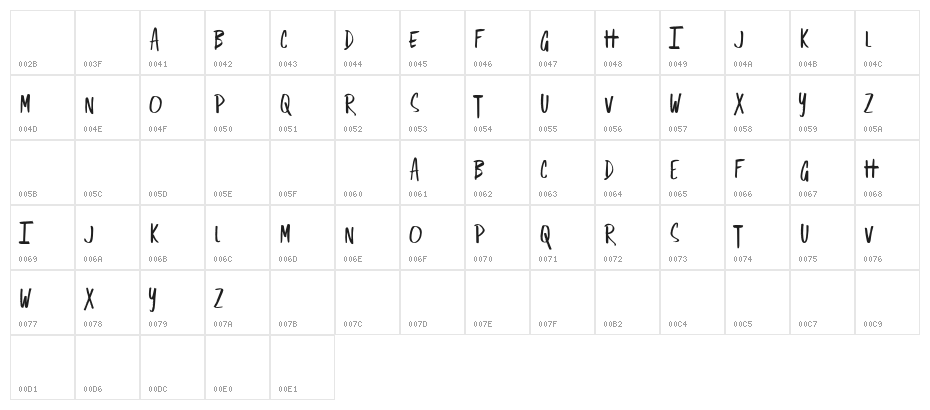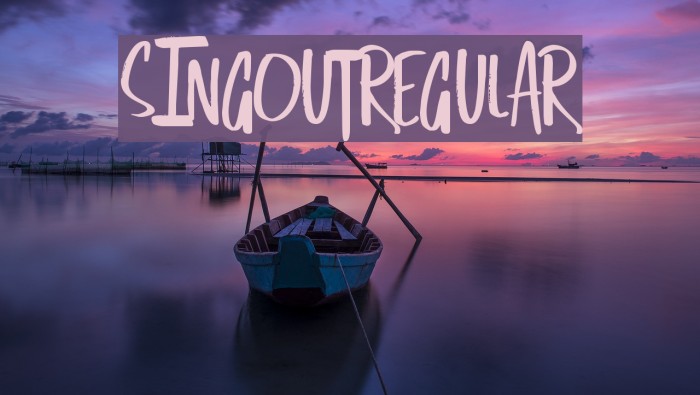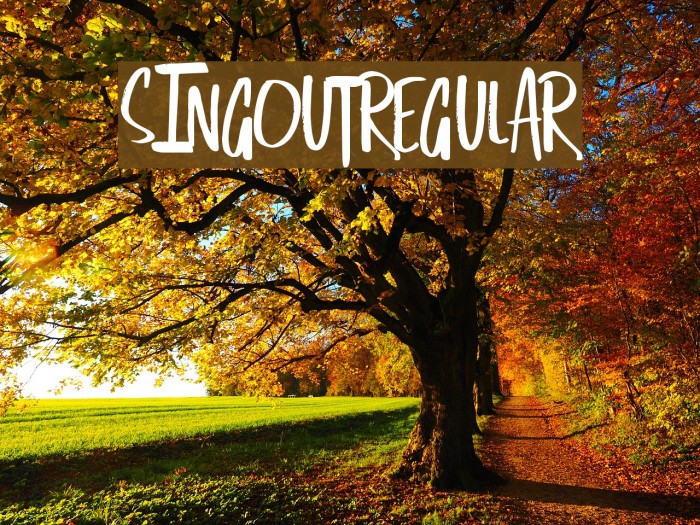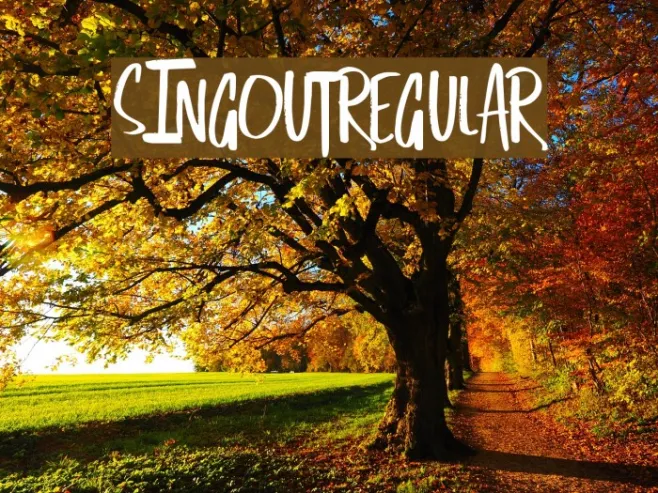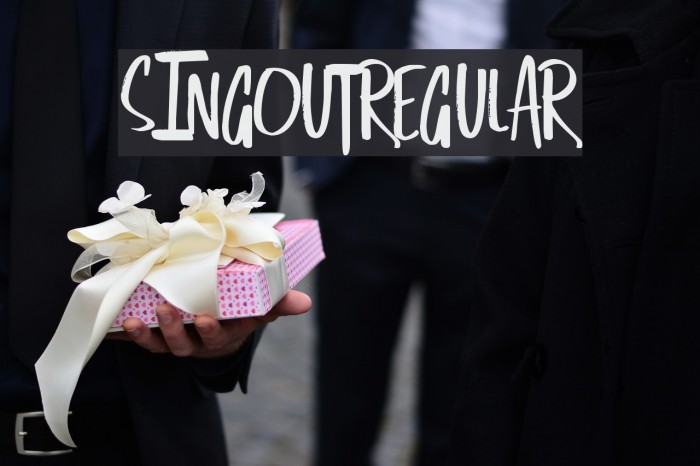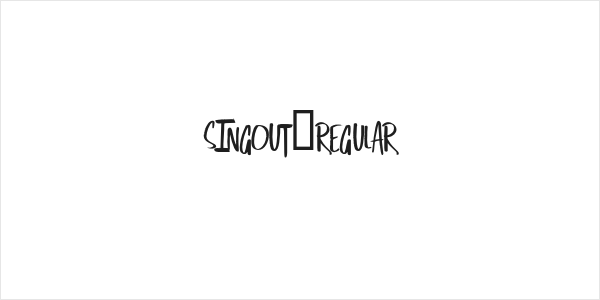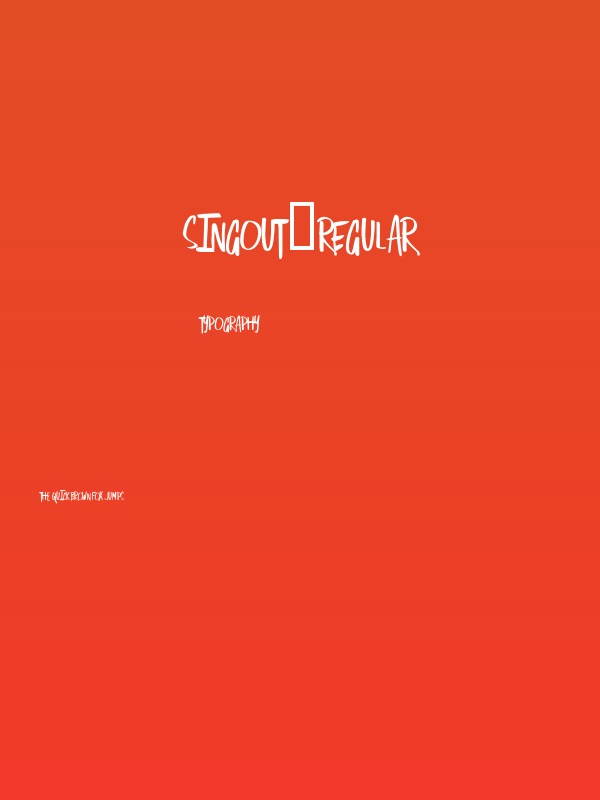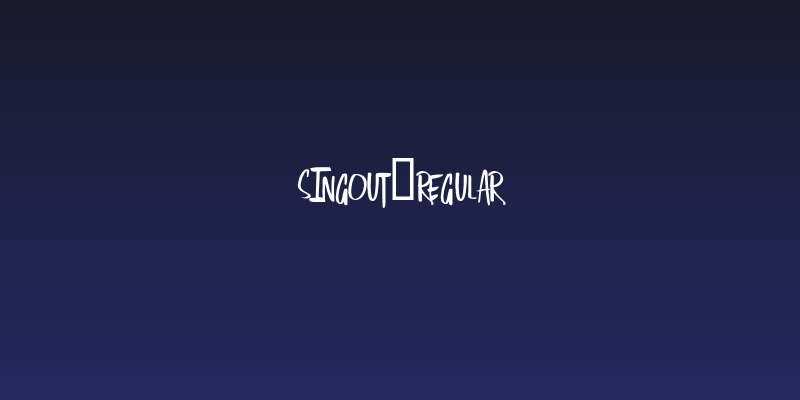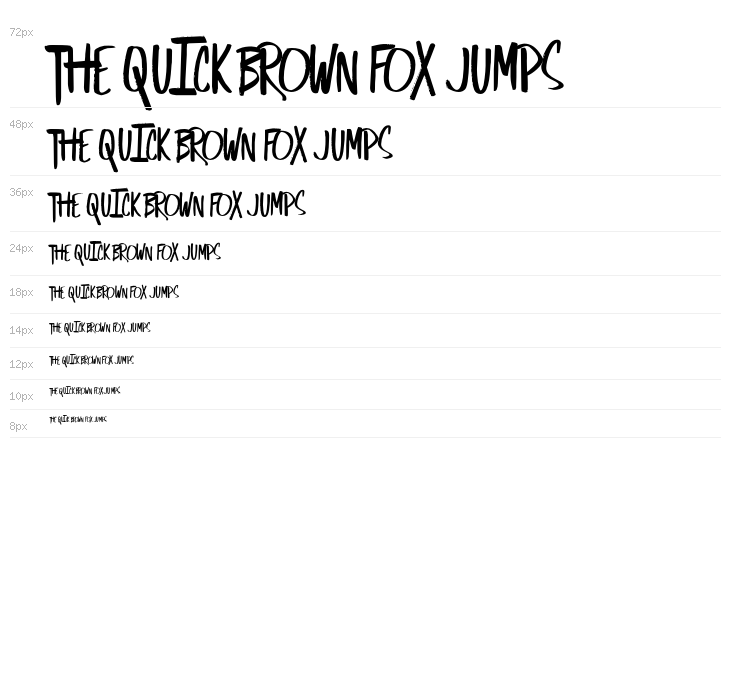
SingOut-Regular Font
SingOut-Regular Description
This font features a bold, expressive style with a handwritten appearance. The uppercase letters are dynamic and slightly irregular, giving a sense of movement and energy. The strokes are thick and vary in width, adding to the casual and artistic feel. The characters are closely spaced, enhancing the compact and cohesive look. This font lacks lowercase letters and numerals, focusing solely on uppercase letters, which makes it ideal for impactful headlines or titles. The overall design is modern and playful, suitable for creative projects that require a personal touch.